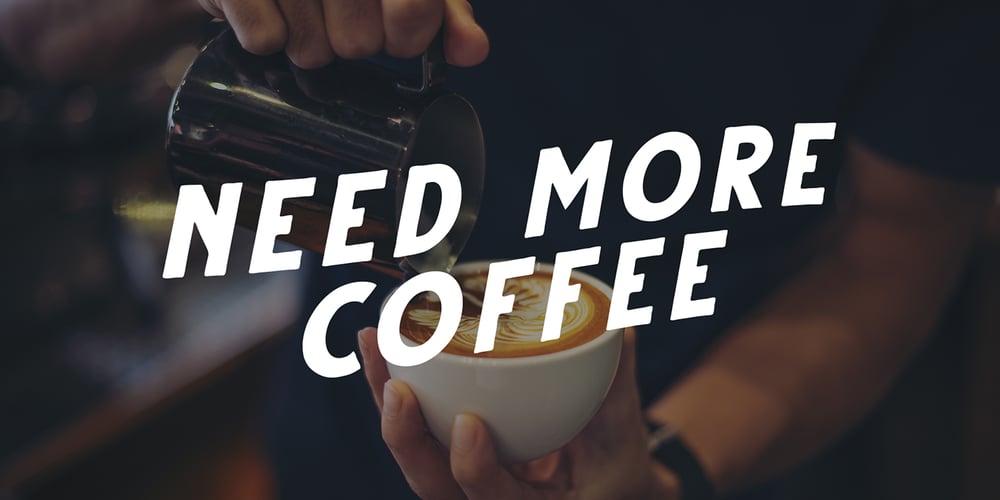
Gutter
Gutter font
Gutter Font Family was designed by Andika Setiawan and published by Dikas Studio. Gutter contains 2 styles and family package options. Gutter is a hand drawn sans serif typeface with a rough and vintage character.Gutter comes with 4 styles: regular, italic, rust, rust italic. Perfect for logos, badges, typography and any design that needs a vintage look.